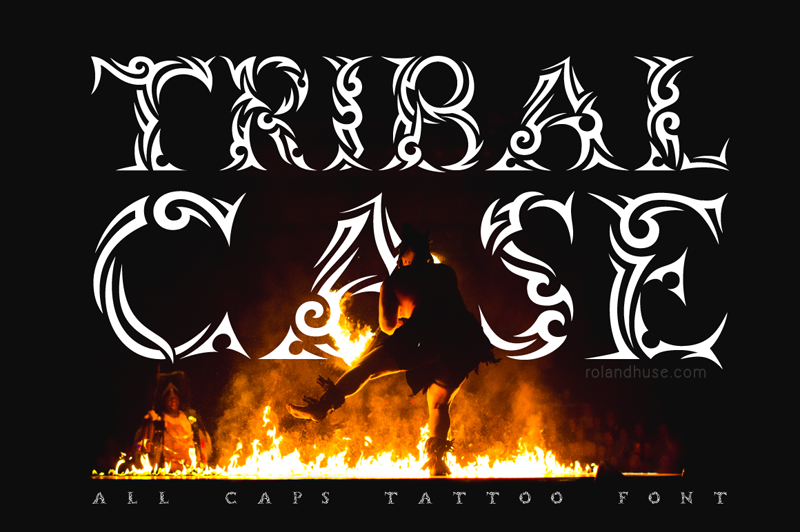
Preview and download Tribal Case Font. Created by Runes & Fonts in Fancy Decorative styles with Free for personal use license.
Tribal Case is an all caps Tattoo font great for display, ads, POSTERS, MAGAZINES, T-SHIRTS, LOGOS, logotype, tattoo initials. Contains letters A-Z. FREE FOR PERSONAL USE ONLY You can purchase a license for commercial use at store.rolandhuse.com Image credits (I used as background) poster #1 : veeterzy from Unsplash https://unsplash.com/@veeterzy poster #2 : Thomas Kelley Unsplash https://unsplash.com/@thkelley Color Palette: poster #3 : Blazer from Colour lovers http://www.colourlovers.com/palette/4311588/Blazer Photoshop pattern: poster #4 : Ruslan Zelensky 's Goldish Kit here on Creative Market! https://creativemarket.com/Zelensky/377176-Goldish-Kit.-Gold-Styles-with-Extras You MAY NOT sell this font or claim them as your own. You MAY NOT edit or rename this font. You MAY NOT redistribute this font. Thank you & Good luck with your work! Roland https://crmrkt.com/qmRb3 |